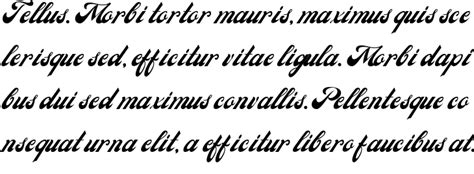
Carlson's Script Font. Carlson font is inspired by nouvo’s art concept and combines contemporary design. Web what fonts are similar to carlson script otf (400)?